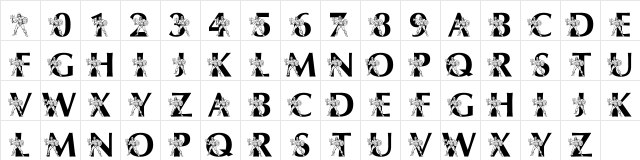
LMS By The Power of Grayskull Regular
Design Context for LMS By The Power of Grayskull Typeface
LMS By The Power of Grayskull brings high-energy athletic personality to the page — its confident, muscular forms are built for impact.
Built for sports team identities, athletic apparel, event posters, and high-energy promotional material.
Font Pairing: Use alongside a condensed or geometric sans for supporting copy — keep the pairing bold, functional, and free of ornament.
Pro Tip: LMS By The Power of Grayskull thrives on contrast — try it large, bold, and tight against a clean background for maximum visual impact.